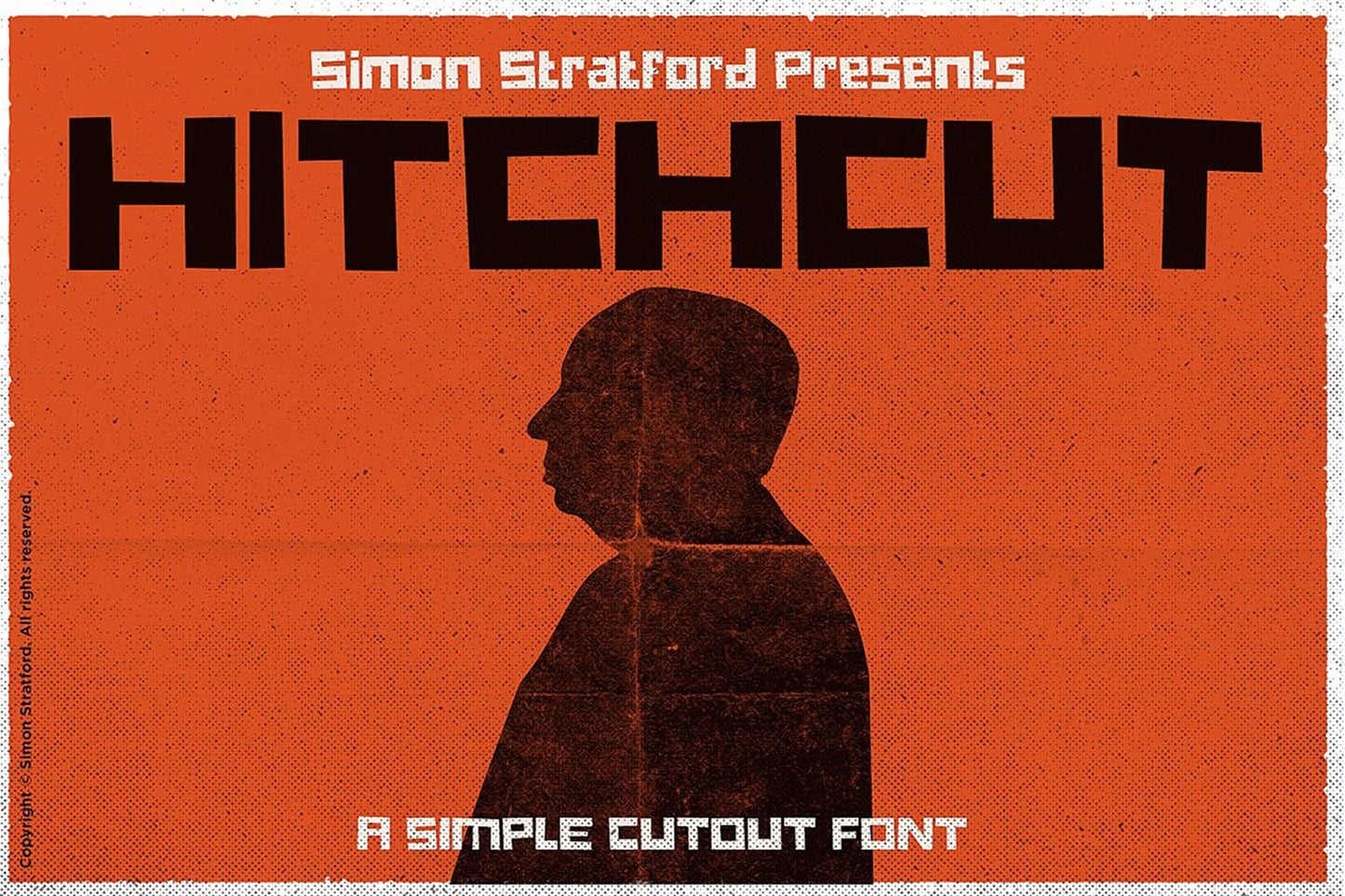
Hitchcut font, inspired by Alfred Hitchcock and Saul Bass, is my homage to their work and the film Vertigo.
A homage to Saul Bass
Creating a new font can be an arduous task. Not this time; it’s going to be different. This time, I’m not going to sketch it out or even touch Illustrator. I’m gonna draw it right into glyphs app.
The Hitchcut Font
I’m calling it Hitchcut — a play on Hitchcock and cut out. It’s wholly inspired by the movie poster vertigo, and it’s a homage more than a slavish copy. For the Hitchcut font, I wanted to have that childlike, playful look and feel. Its letter shapes are simple and even border on crude. Straight lines for everything, like it’s been cut out with scissors.
Hitchcut Font — The Fun Part
After researching and surrounding myself with everything Saul Bass, it was time to get to work. This is the first time that I’m creating everything in glyphs app. I normally design the letters in Illustrator and copy them over — but not this time. I started to draw rough shapes, only using straight lines and using the least amount of points. I started with the capital letters and just kept everything simple. After I had all the main uppercase characters, I moved to the lowercase, then the numbers and punctuation. It was all done quite quickly; I got all the basic characters done in a couple of hours.
Hitchcut Contextual Alternatives
Contextual alternatives allow you to replace a letter with an alternative version. So, if you typed ABBA, each letter would be slightly different. I wanted three alternatives for each character in uppercase and lowercase. I didn’t re-draw the three versions — I just copied and tweaked them. What I ended up creating is 26 x 3 = 78 Characters. More work but worth it. Once I was finished, I just exported as .otf and tested the hell out of it. Looking at the alternative letters, they were quite subtle; next time, I’ll make them a bit more obvious.
Conclusion
Very happy with how the Hitchcut typeface turned out. I’ve got a new skill under my belt. I have learned about contextual alternatives. It’s really amazing what you can do with a bit of scripting. Now, if I ever get the time, I want to add different weights, like a light and bold version. That’s not going to happen anytime soon, oh well.